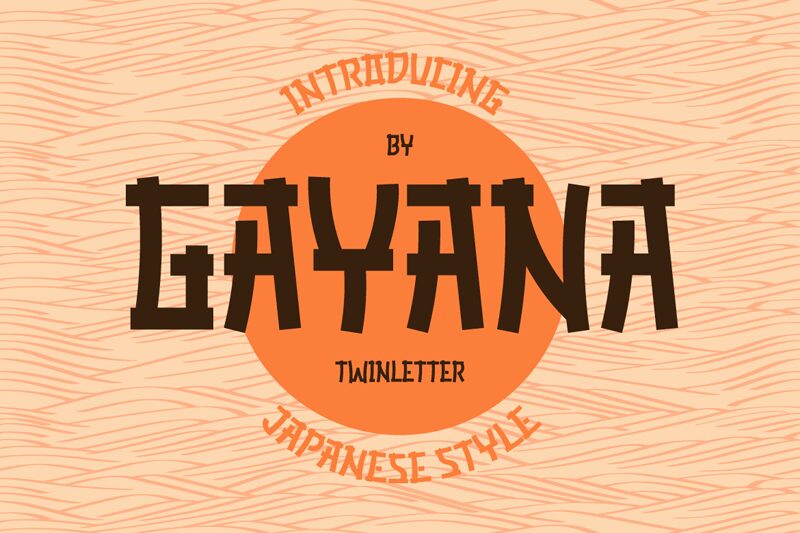
GAYANA is a Japanese-style condensed font designed by twinletter. Its unique and elegant strokes give it a modern twist, making it perfect for contemporary projects requiring a touch of sophistication. The semi-bold font is suitable for headings and titles, while the regular weight is ideal for body text. GAYANA's condensed width allows for efficient use of space, making it perfect for designs that require tight typography such as posters, packaging, and branding materials. Whether you're working on an editorial spread or designing a website, GAYANA's sleek and beautiful design will elevate your project to the next level.